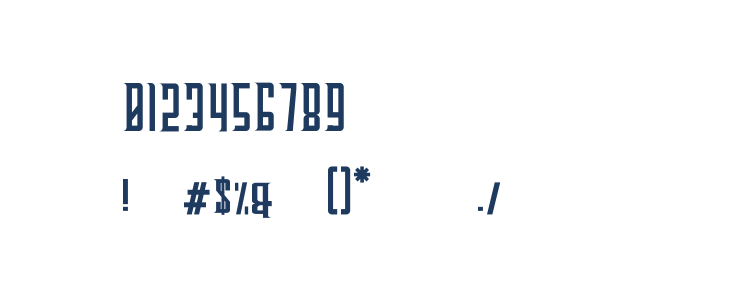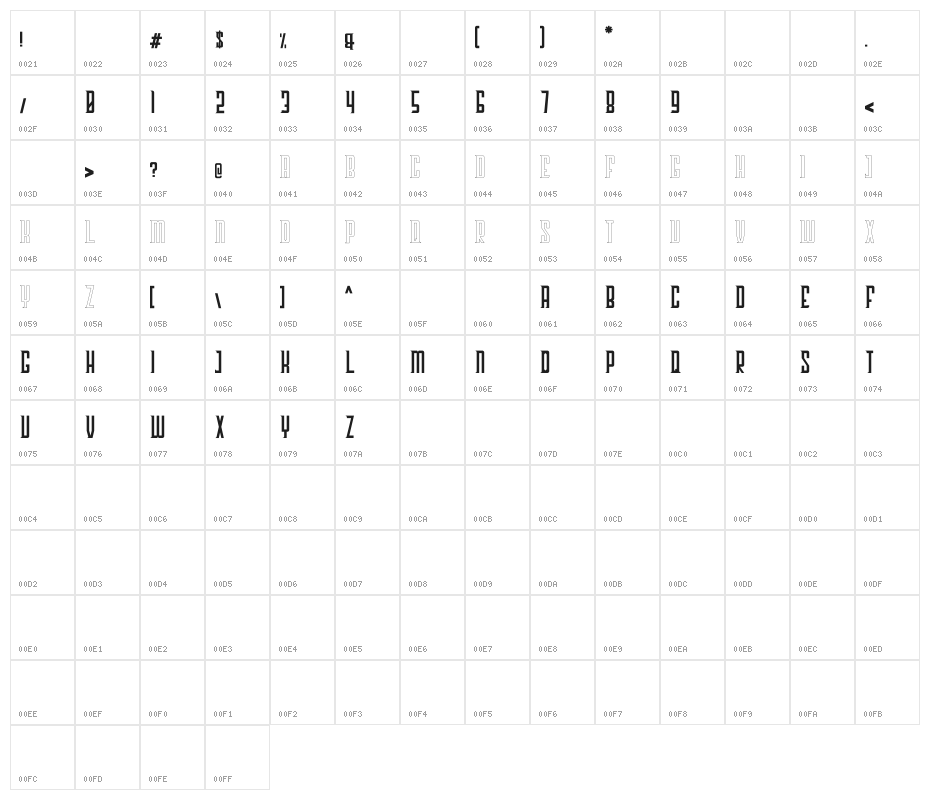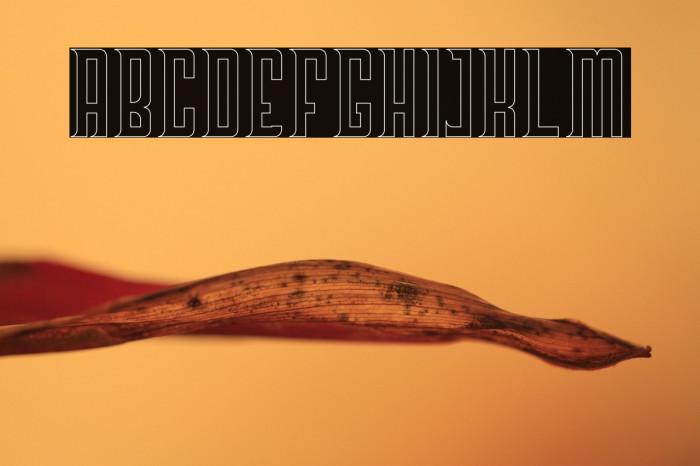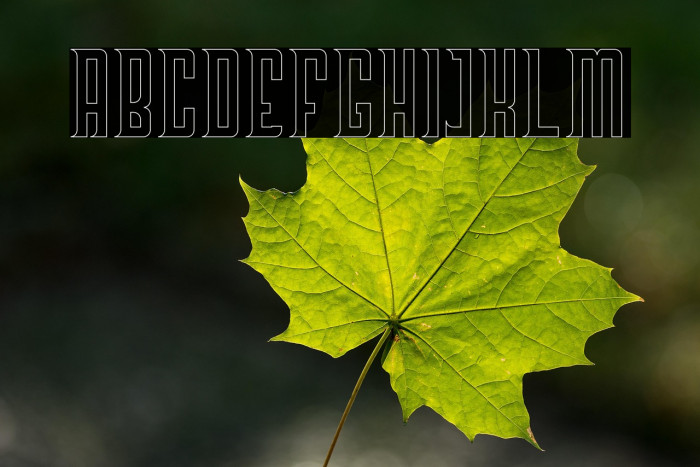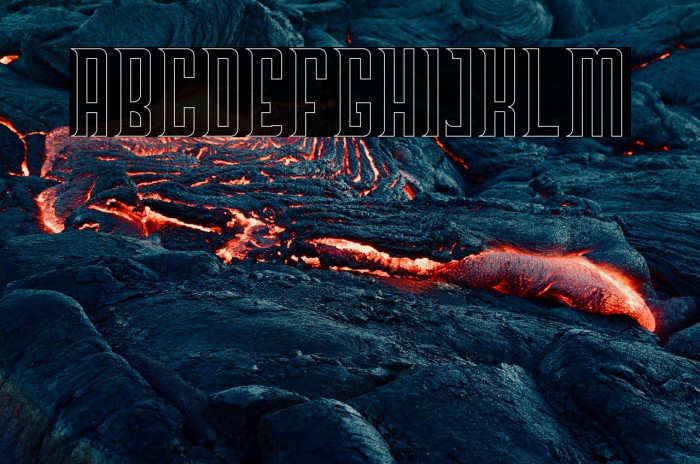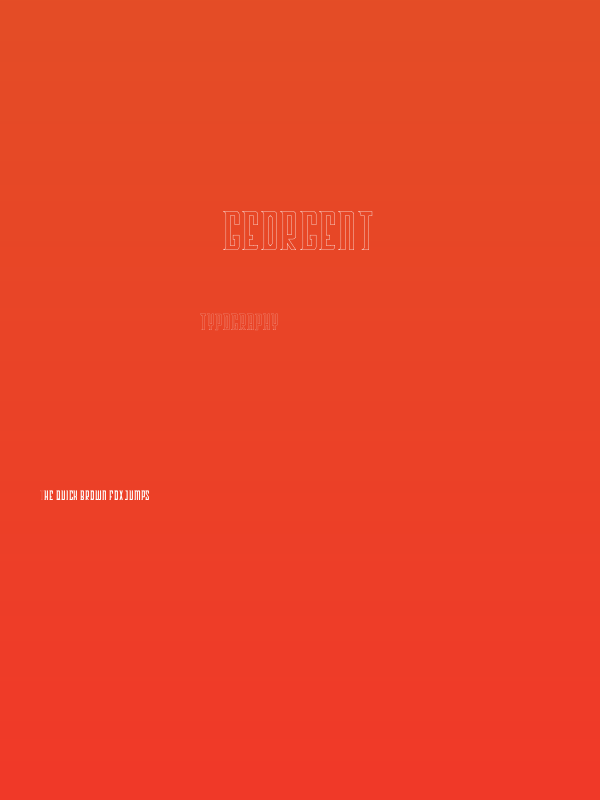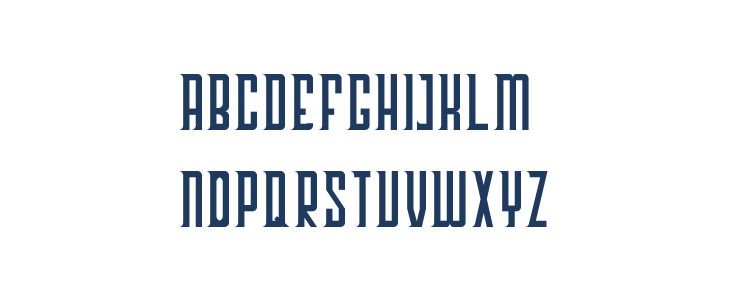
Georgent Font
Georgent Description
This font features a bold and commanding presence with its strong geometric shapes and sharp angles. The uppercase letters are tall and narrow, giving a sense of height and authority. The design incorporates a modern twist on traditional serif elements, with subtle serifs that add a touch of elegance without compromising the font's boldness. The numbers and special characters maintain the same robust style, ensuring consistency across all text elements. This font is ideal for making a statement, with its high contrast and distinct character shapes that draw attention.
| Proposed Projects | Ideal for branding, posters, headlines, and any project requiring a strong visual impact. |